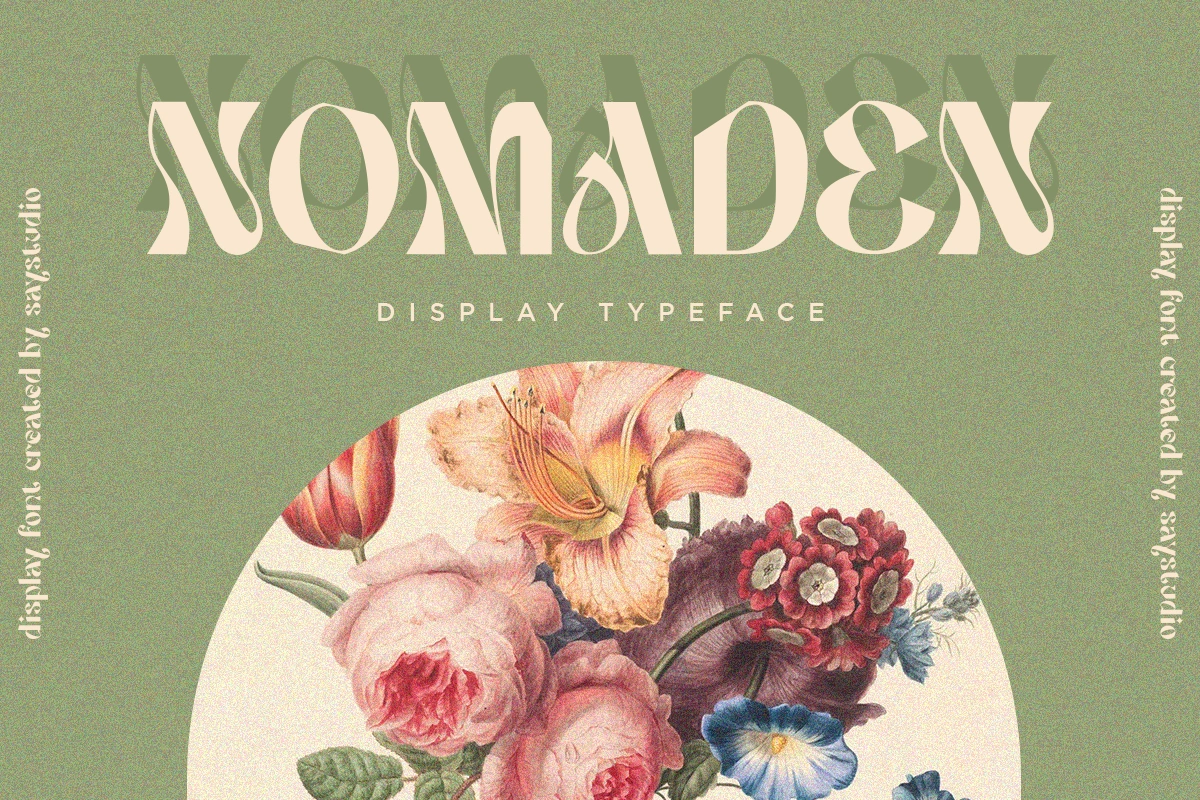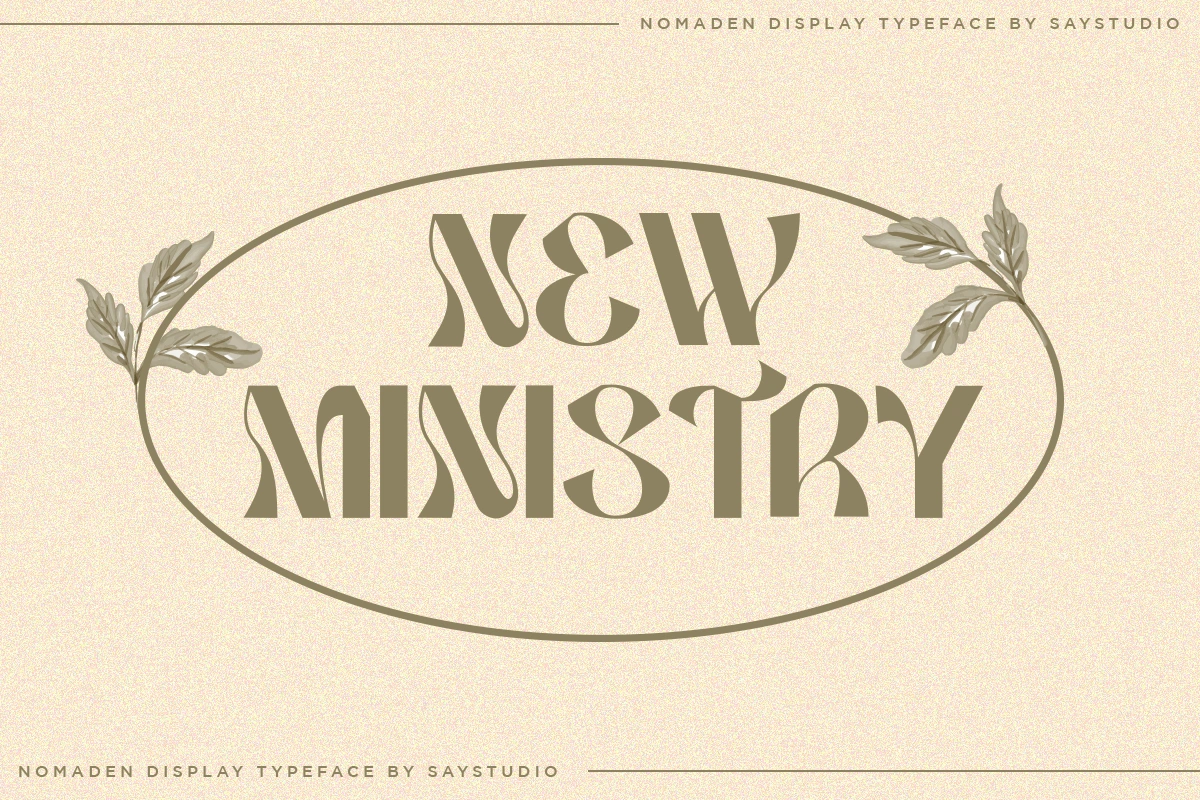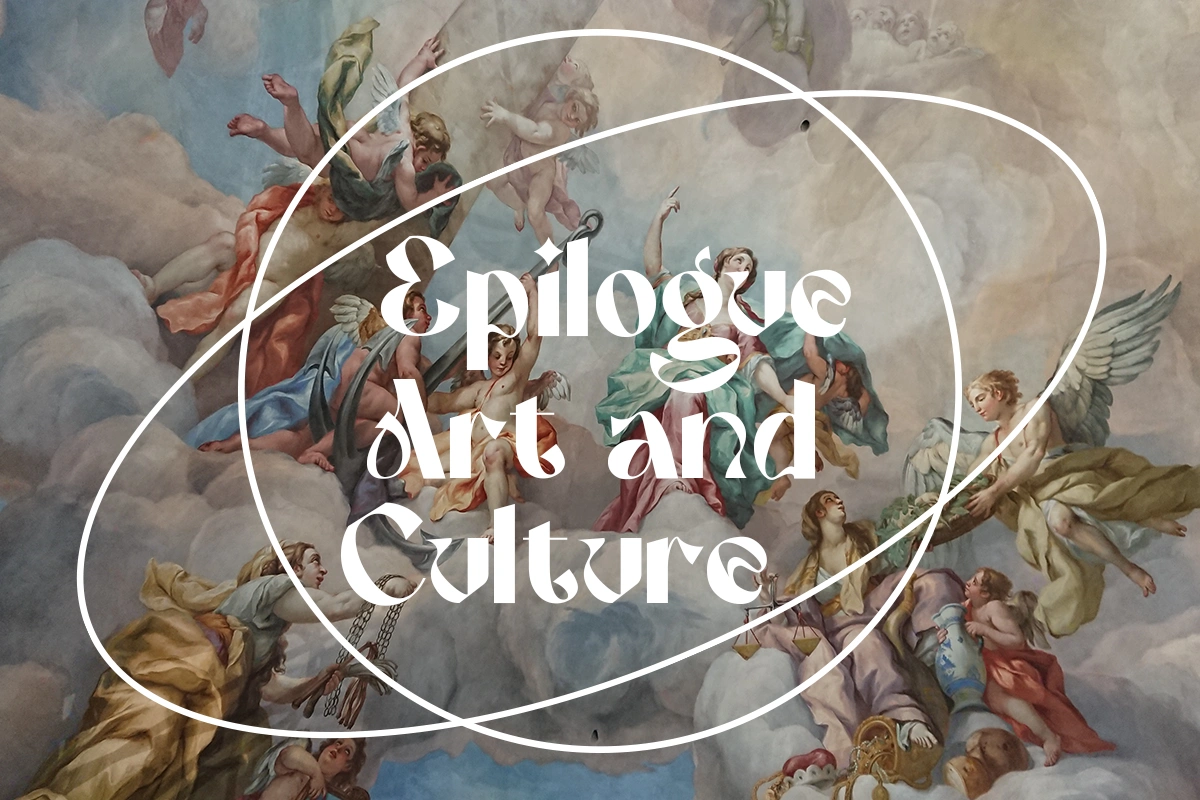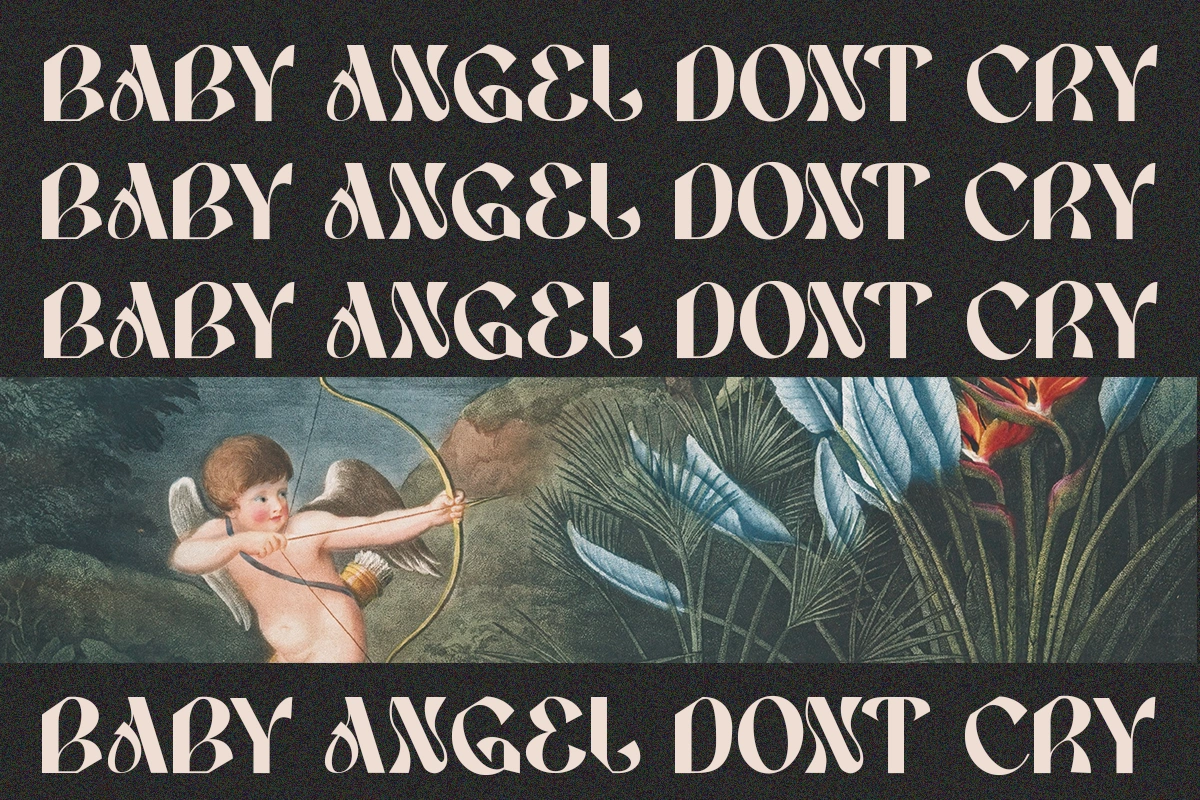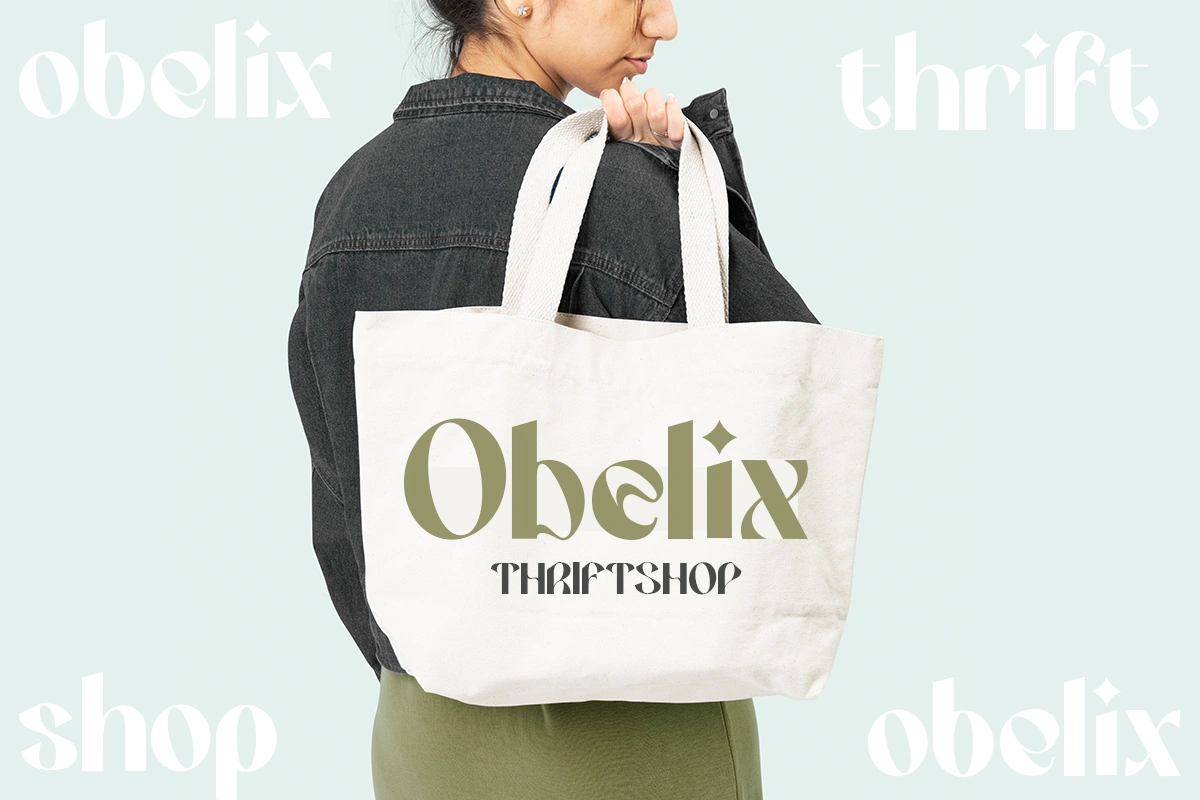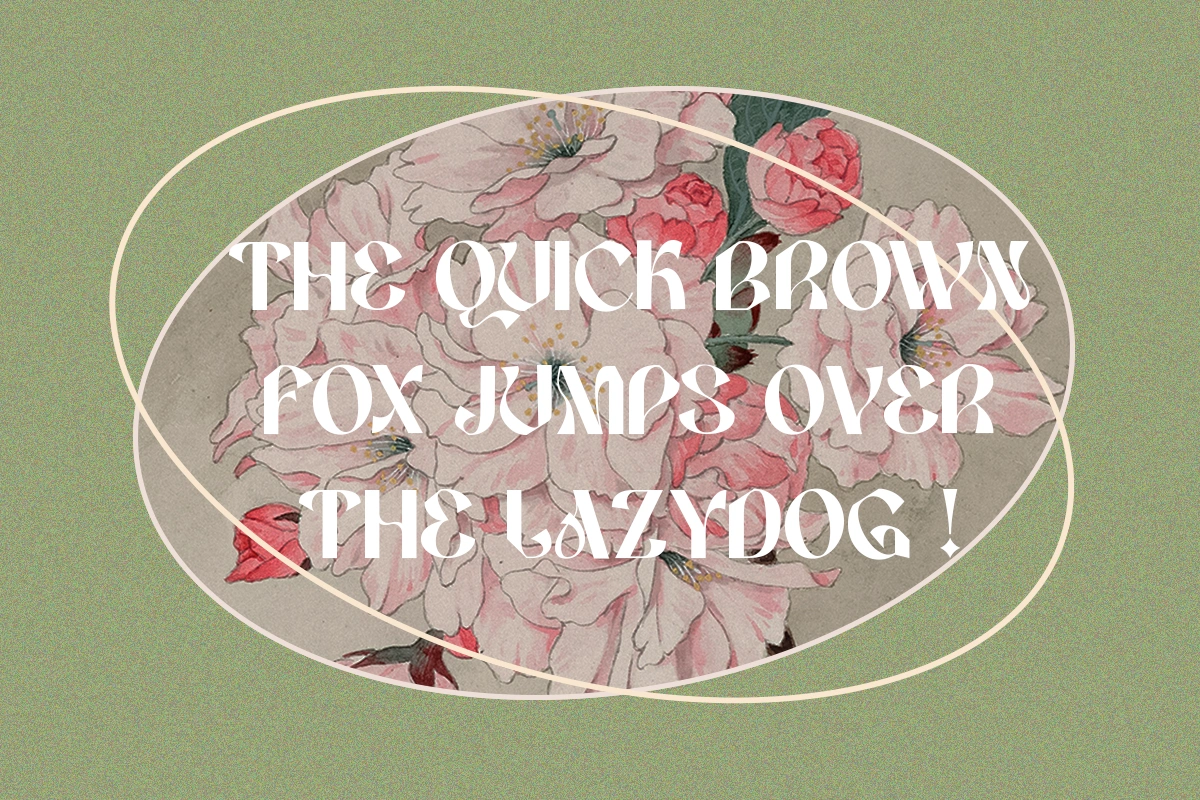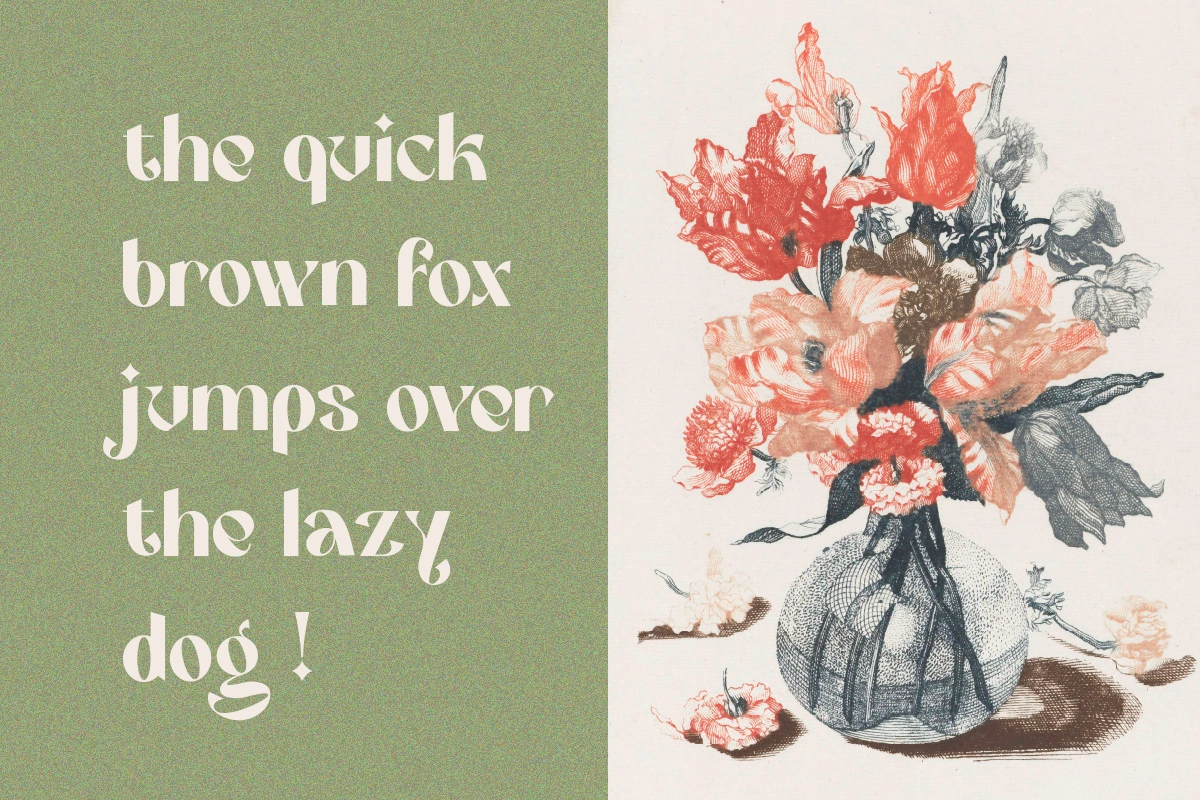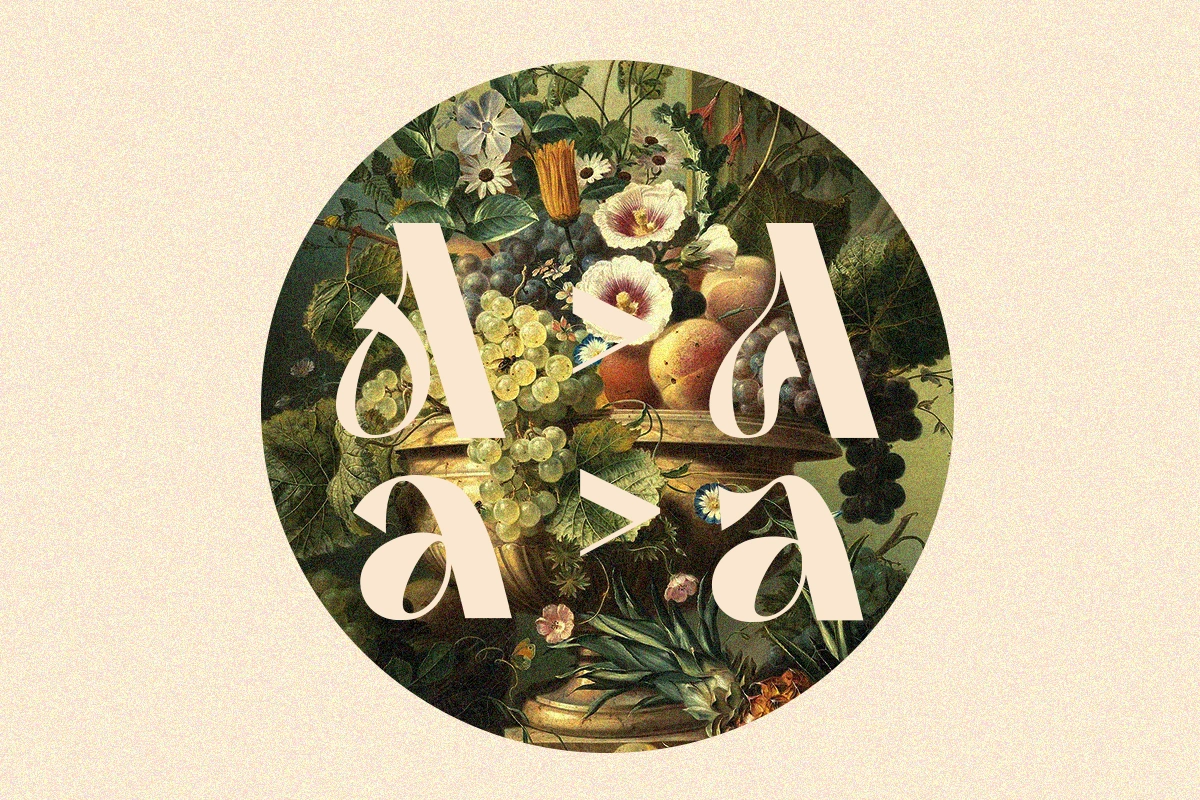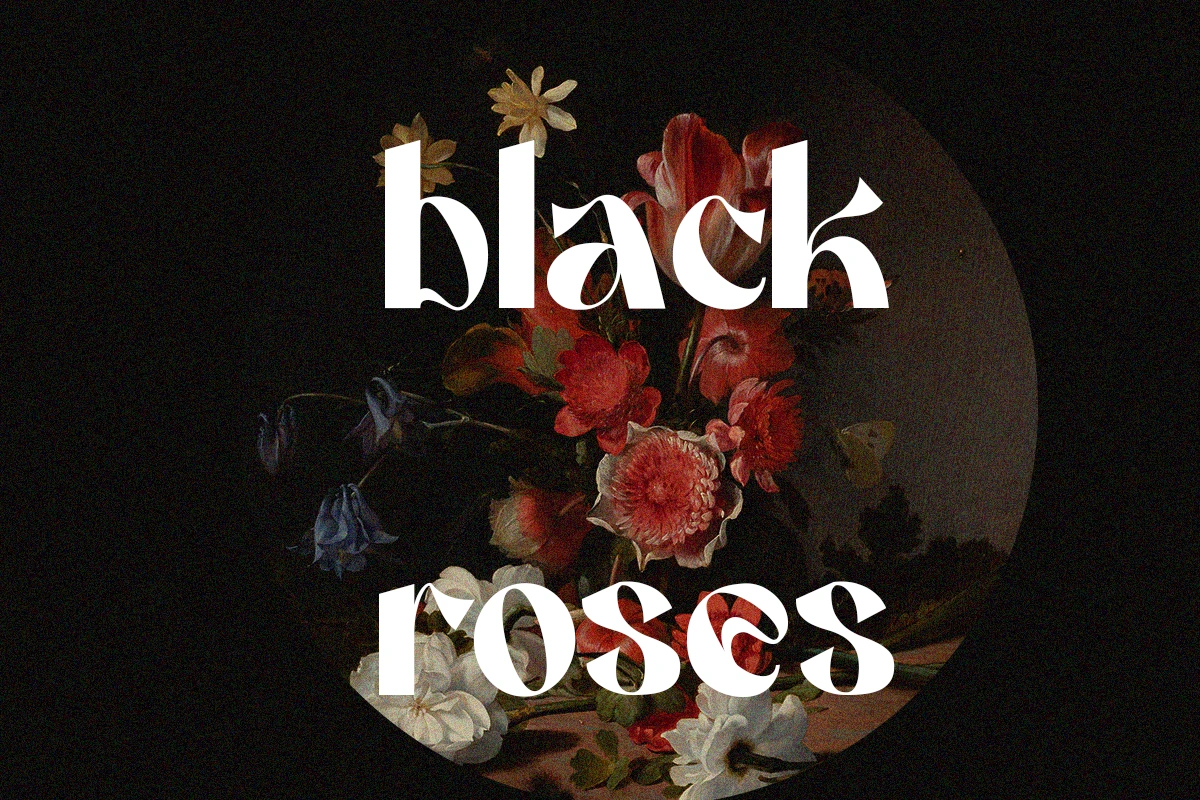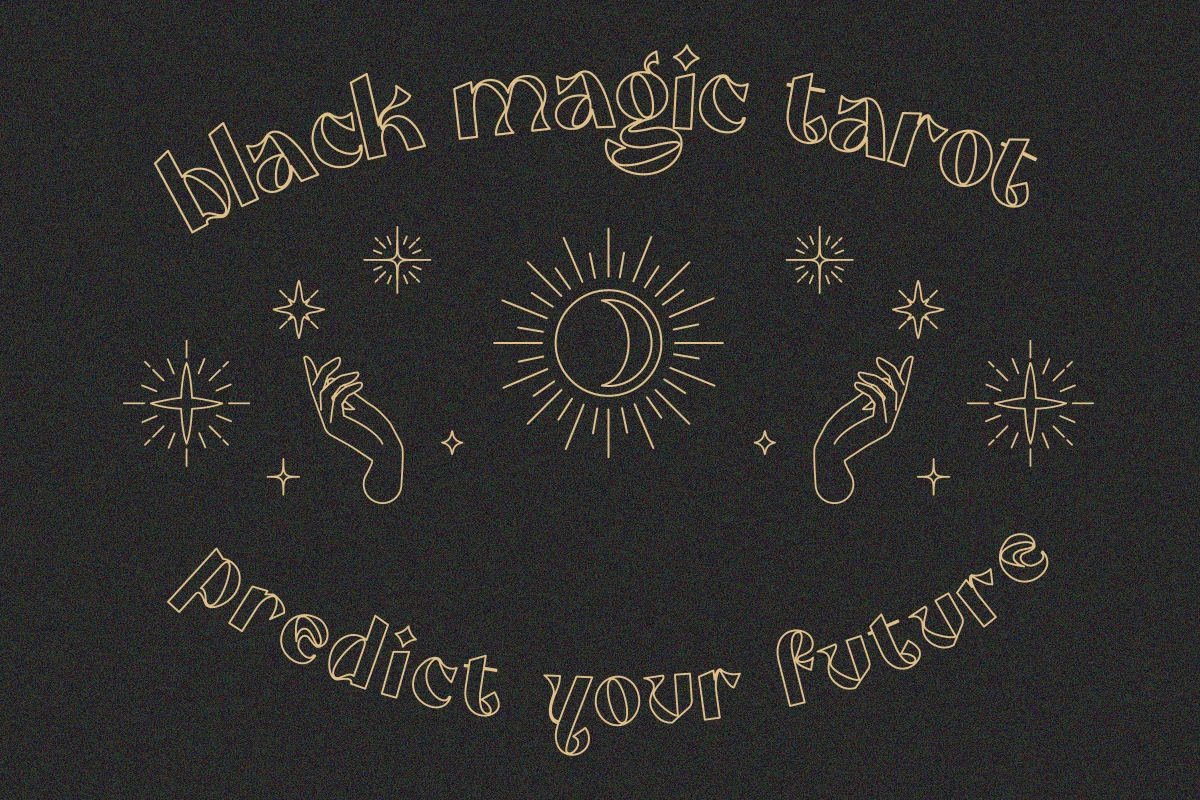
Nomaden – Display Font
Nomaden is a distinctive display typeface: perfect for adding a unique touch to logos, brand identity, or modern typographic designs. With a hint of vintage and modern mixed together, this experimental typeface crosses the lines between retro and new, serif and sans-serif, decoration and legibility.
Nomaden is a hand-crafted font that brings a unique visual voice to any design, from modern logos to instagram quotes, portfolio websites, editorial layouts, personal branding, wedding stationery, product packaging, Nomaden is the perfect font for all your branding needs. Whether you’re looking to give off an air of luxury, or just want something simple and easy-to read – this sans serif will be able help!